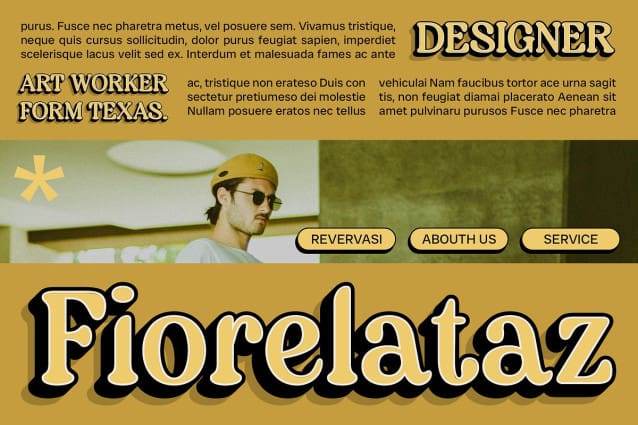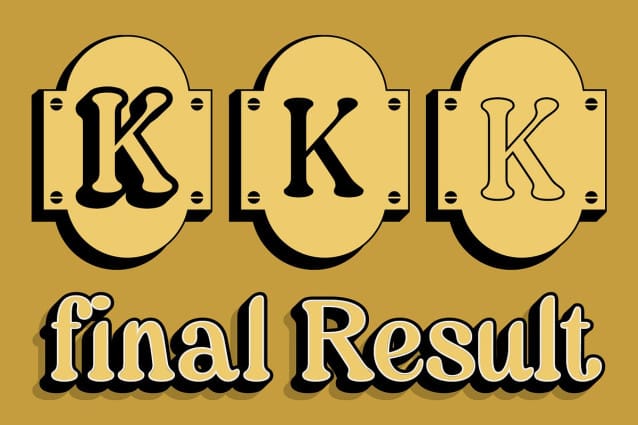
Forena 3D Font
Forena 3D Font is a modern serif font that epitomizes elegance with its sophisticated feel and captivating 3D effect. Designed to enhance visual impact and readability, this font is ideal for projects that prioritize a luxurious and visually striking appearance across diverse design applications.
The serif characters of Forena 3D exude timeless elegance, meticulously crafted to convey a sense of refinement and exclusivity. Each letter maintains clarity and readability while the 3D effect adds a layer of depth, making this font suitable for editorial designs, branding initiatives, and signage that demand a distinctive visual presence.
The 3D effect in Forena 3D envelops each character with dimensional depth, enhancing typographic compositions with a captivating visual allure. This feature not only enriches the font’s aesthetic appeal but also ensures your designs stand out with a modern and dynamic impression.
Ideal for editorial layouts in magazines or books, branding that seeks an exclusive impression, and signage designs aimed at attracting attention, Forena 3D excels in projects that require a balance of elegance and visual impact. Its ability to merge luxurious serif design with dimensional depth makes it a versatile choice for enhancing the visual appeal of various design contexts.